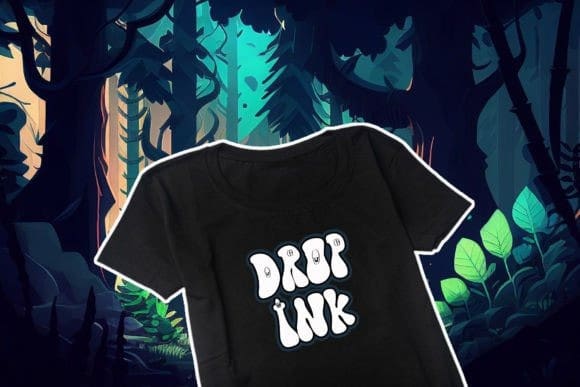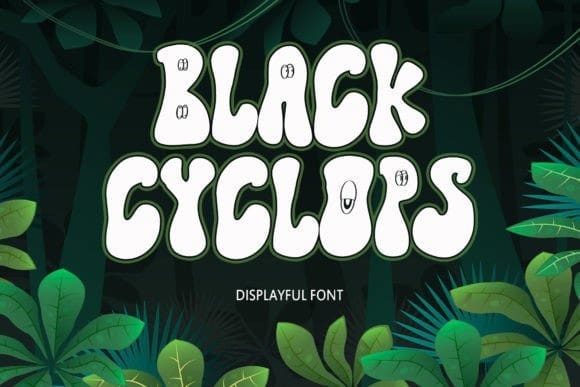
Black Cyclops Font
Black Cyclops Font is a cute and fun display font. This original look will appeal to a wide range of crafty ideas, from letterheads and titles to stationery.